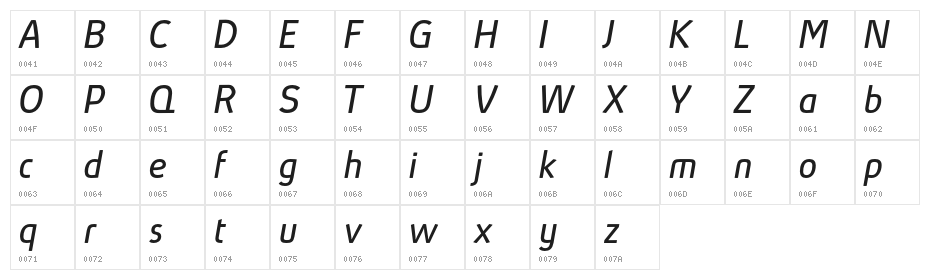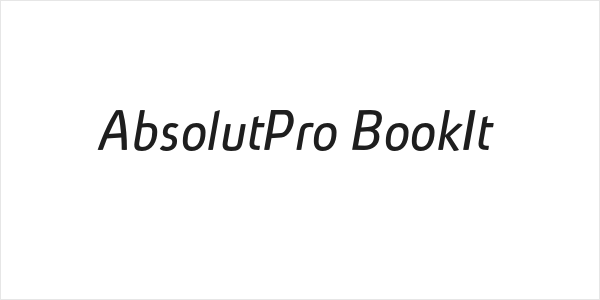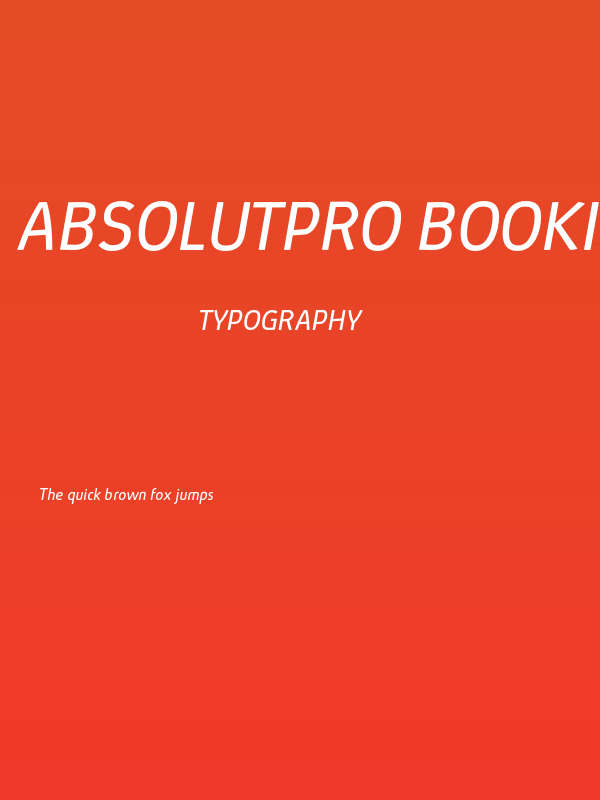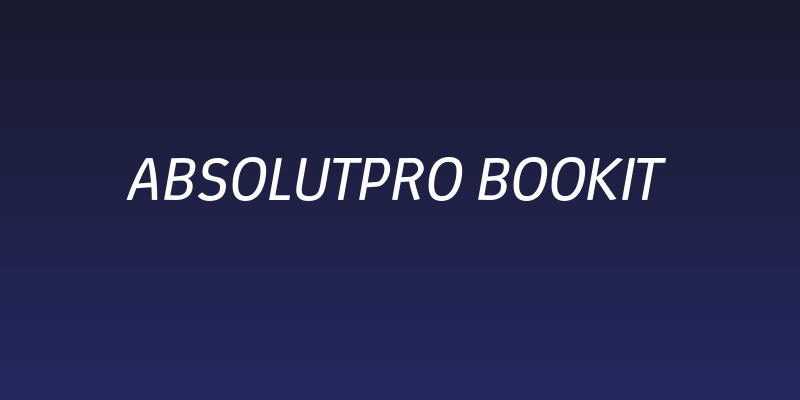
AbsolutPro-BookIt Font
AbsolutPro-BookIt Description
This font features a modern and sleek design with a slight italic slant, giving it a dynamic and forward-moving appearance. The characters are well-proportioned with a consistent stroke width, providing a clean and professional look. The uppercase letters are bold and assertive, while the lowercase letters maintain a friendly and approachable style. The numerals are clear and easy to read, making them suitable for various applications. The special characters are designed to complement the overall aesthetic, ensuring versatility in usage.